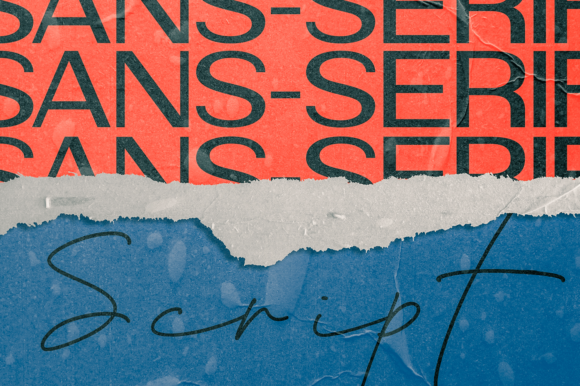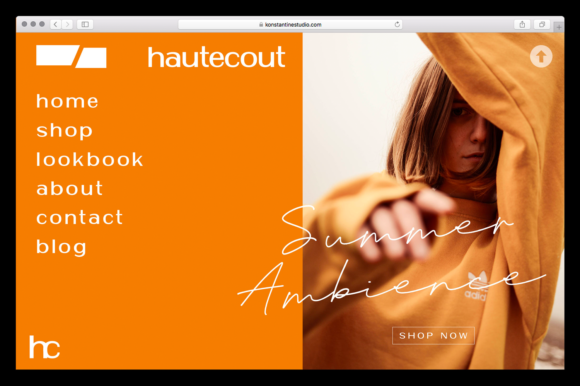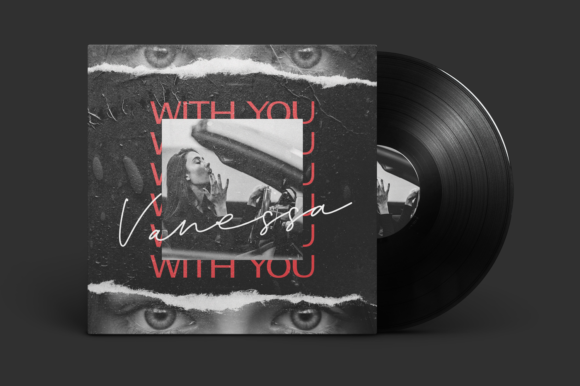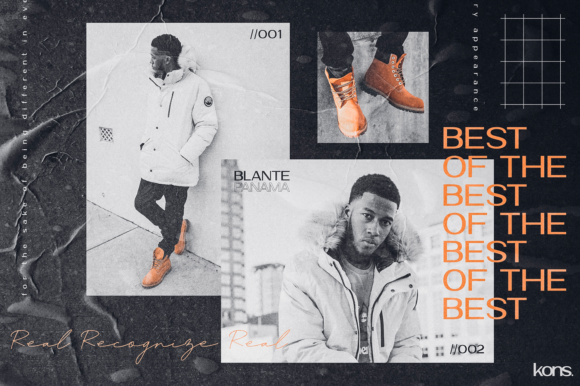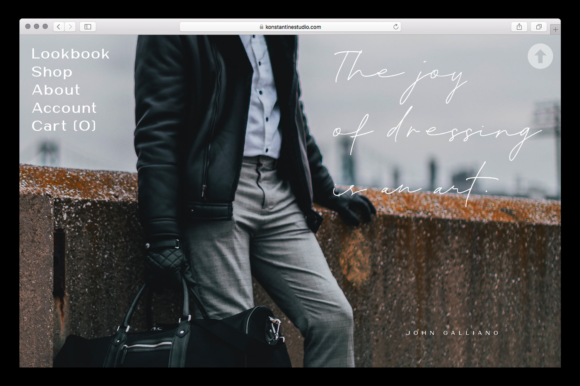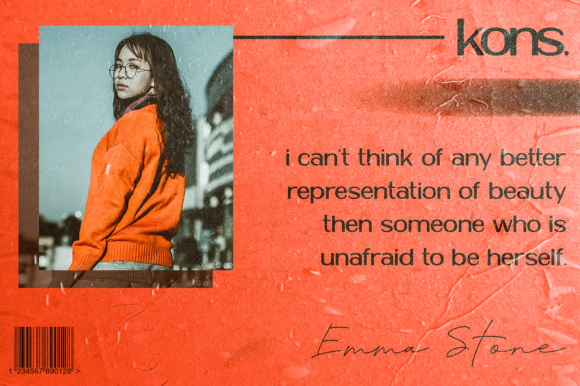
Introducing Blante Panama Font: Elevate Your Designs with Elegance and Friendliness
In the world of typography, finding the perfect font that combines elegance with friendliness can be a daunting task. However, your search ends with the Blante Panama Font, a stunning duo that pairs a beautiful script with a clean sans serif. This versatile font combination is designed to give your projects a branded yet approachable feel, making it an ideal choice for designers and crafters alike.
The Perfect Pair: Script and Sans Serif
Blante Panama is not just any font; it’s a comprehensive duo that includes two distinct styles: a gorgeous script and a crisp sans serif. The script font exudes elegance and sophistication, perfect for adding a touch of luxury to your designs. On the other hand, the sans serif font offers a clean, modern look that ensures clarity and readability. What makes Blante Panama truly special is how seamlessly these two styles complement each other. You can use them together to create a visually appealing contrast or use them individually, depending on your project’s requirements.
Key Features of Blante Panama Font
- Dual Style**: Includes both a script and a sans serif font, offering versatility for various design projects.
- Elegant and Friendly**: Achieves a perfect balance between elegance and friendliness, suitable for a wide range of applications.
- High Readability**: The sans serif font ensures clear readability, making it ideal for body text.
- Customizable**: Offers a range of applications, from branding and advertising to packaging and digital media.
Applications of Blante Panama Font
The versatility of Blante Panama Font makes it suitable for a myriad of design projects. Here are some of the areas where this font duo shines:
- Branding and Logotypes: The elegant script font can add a luxurious feel to your brand’s logo, while the sans serif font can be used for the tagline or supporting text.
- Web Design: Create a stunning website with a professional yet friendly vibe by using the sans serif for body text and the script for headings or highlights.
- Print Design: Perfect for brochures, flyers, and posters where you want to make a statement with elegant typography.
- Packaging: Add a touch of sophistication to your product packaging with the script font for product names and the sans serif for descriptions.
Why Choose Blante Panama Font?
Choosing Blante Panama Font for your design projects comes with numerous benefits:
- Consistency: Ensures typographic consistency across your projects, enhancing your brand’s visual identity.
- Creativity Boost: The combination of script and sans serif fonts can spark creativity, leading to more innovative and engaging designs.
Blante Panama Font is a game-changer for designers and crafters looking to elevate their projects with a branded but friendly feel. Its elegant script and clean sans serif duo offers the perfect blend of sophistication and approachability. Whether you’re working on a branding project, website design, or print materials, Blante Panama provides the versatility and style to make your work stand out. Incorporate Blante Panama Font into your design toolkit and discover the difference it can make in your creative projects.